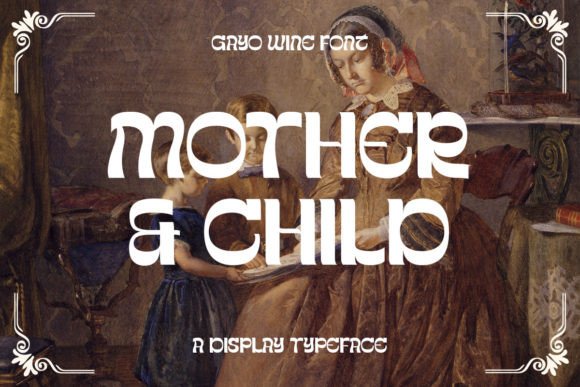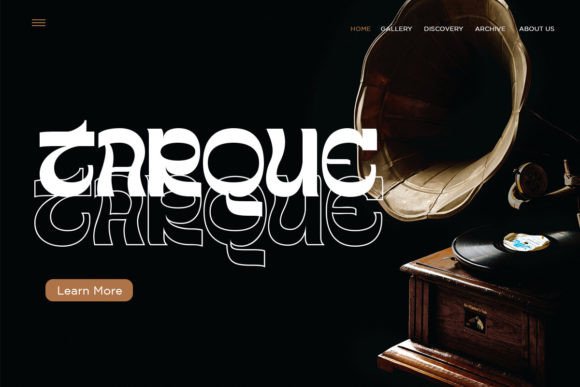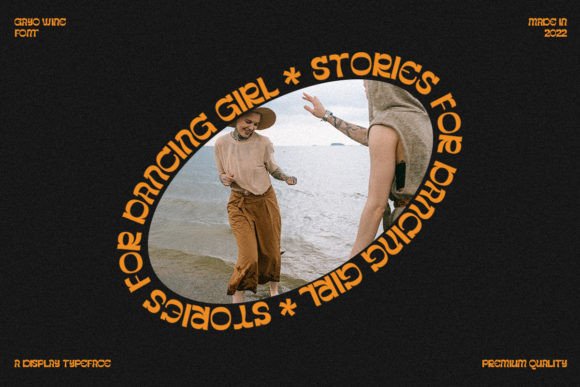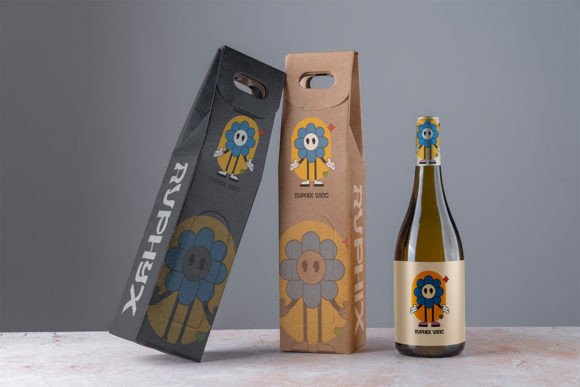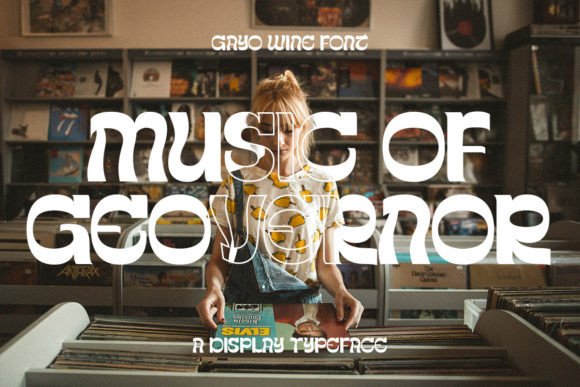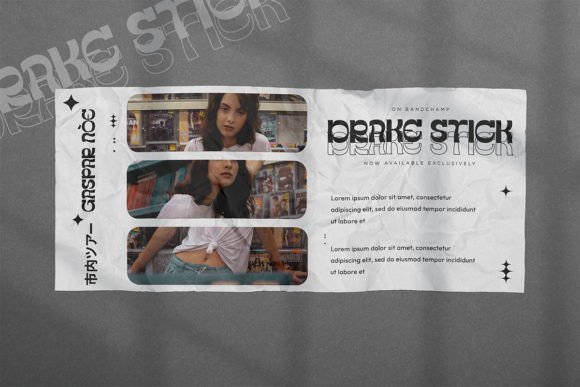
Introducing Gayo Wine Font: The Ultimate Display Typeface for Bold Designs
In the world of typography, a good font can make all the difference in creating visually stunning designs. For designers and crafters looking for a modern, bold, and eye-grabbing typeface, Gayo Wine Font is an excellent choice. This authoritative display font is perfect for creating attention-grabbing designs that don’t take themselves too seriously.
What is Gayo Wine Font?
Gayo Wine Font is a thick, bold, and modern display typeface designed to make a statement. Its robust and sturdy appearance makes it ideal for headlines, social media posts, gig posters, logos, packaging, advertising, and more. With Gayo Wine Font, you can add a touch of sophistication and playfulness to your designs, making it perfect for creative projects that require a bit of swagger.
Key Features of Gayo Wine Font
- Bold and Modern Design: Gayo Wine Font boasts a bold and modern design that’s sure to grab attention.
- Versatile: This font is perfect for various design projects, including headlines, social media posts, gig posters, logos, packaging, and advertising.
- Easy to Read: Despite its bold design, Gayo Wine Font is easy to read, making it perfect for designs that require a clear and concise message.
- Unique Character: Gayo Wine Font has a unique character that sets it apart from other display typefaces, making it perfect for designers looking to add a touch of personality to their designs.
Use Cases for Gayo Wine Font
Gayo Wine Font is a versatile typeface that can be used in various design projects, including:
- Headlines: Use Gayo Wine Font to create bold and attention-grabbing headlines that make a statement.
- Social Media: Add a touch of personality to your social media posts with Gayo Wine Font, making them stand out in a crowded feed.
- Gig Posters: Create eye-grabbing gig posters with Gayo Wine Font that’s sure to grab the attention of music lovers.
- Logos: Use Gayo Wine Font to create bold and memorable logos that represent your brand’s personality.
- Packaging: Add a touch of sophistication to your packaging designs with Gayo Wine Font, making your products stand out on store shelves.
- Advertising: Use Gayo Wine Font to create bold and attention-grabbing ads that drive results.
Why Choose Gayo Wine Font?
With so many display typefaces available, why choose Gayo Wine Font? Here are a few reasons:
- Unique Design: Gayo Wine Font has a unique design that sets it apart from other display typefaces.
- Easy to Use: This font is easy to use and pairs well with a variety of other fonts, making it perfect for designers of all levels.
- High-Quality: Gayo Wine Font is a high-quality typeface that’s designed to deliver exceptional results in various design projects.
In conclusion, Gayo Wine Font is an excellent choice for designers and crafters looking for a bold, modern, and eye-grabbing display typeface. With its unique design, versatility, and ease of use, this font is perfect for various design projects, including headlines, social media posts, gig posters, logos, packaging, and advertising. Whether you’re a seasoned designer or just starting out, Gayo Wine Font is a great addition to your typography toolkit.